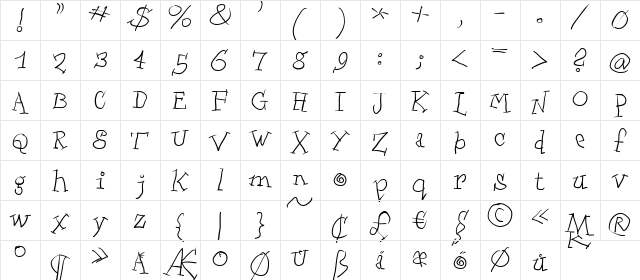
ScrapDealer Regular
Design Context for ScrapDealer Typeface
ScrapDealer is a composed and adaptable typeface that performs quietly and consistently across a wide range of design contexts.
Pro Tip: Use ScrapDealer in both headline and body roles to test its range before committing to a single application.